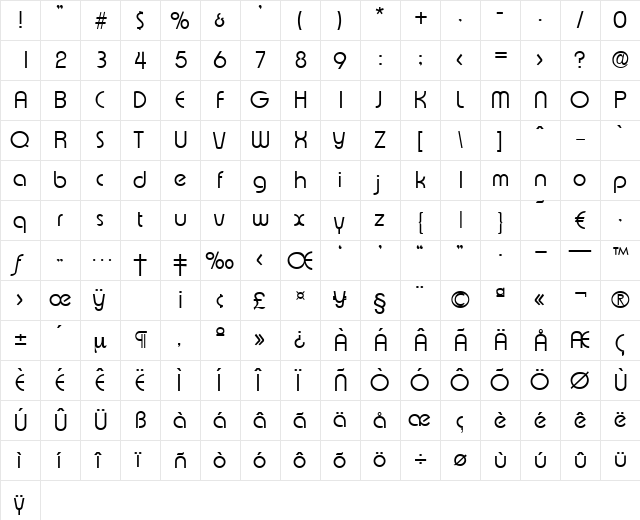
Expressa-Light Regular
Design Context for Expressa-Light Typeface
Expressa-Light is a composed and adaptable typeface that performs quietly and consistently across a wide range of design contexts. The delicate stroke weight brings airiness and refinement to layouts.
Pro Tip: Pair Expressa-Light with a font of contrasting weight or personality to build a more expressive typographic hierarchy.